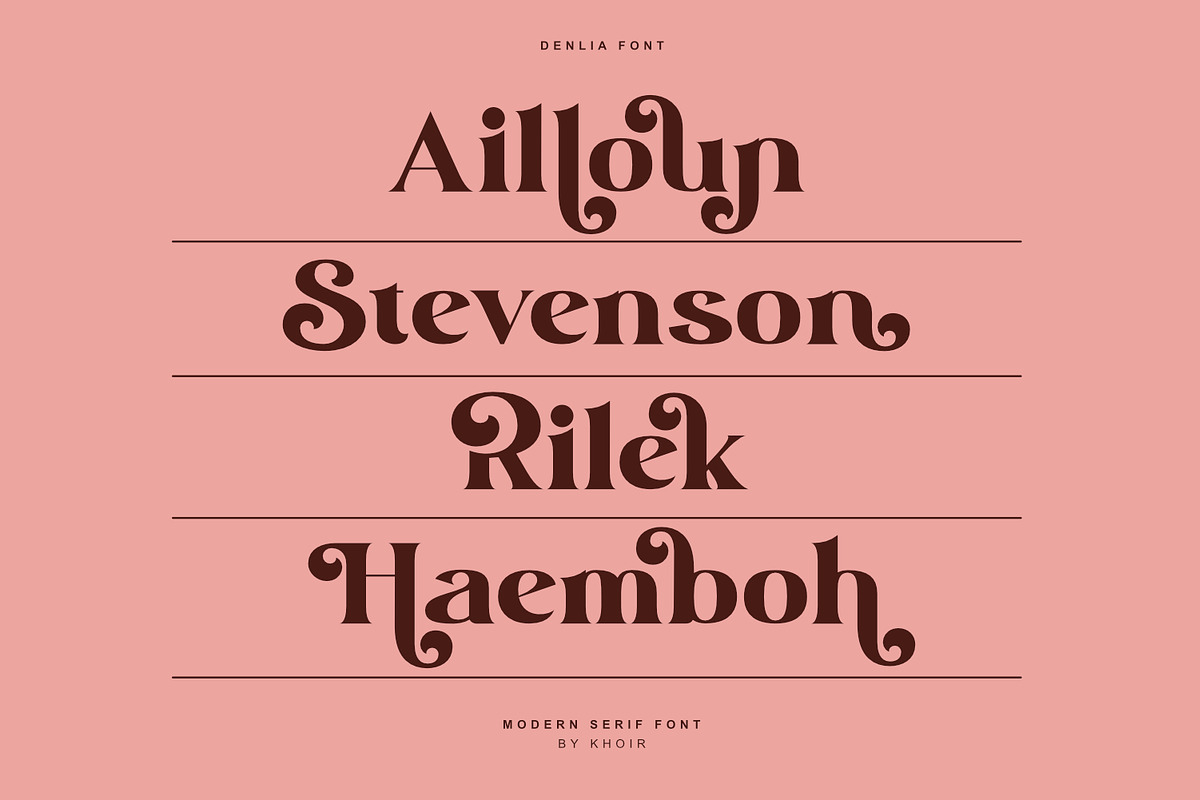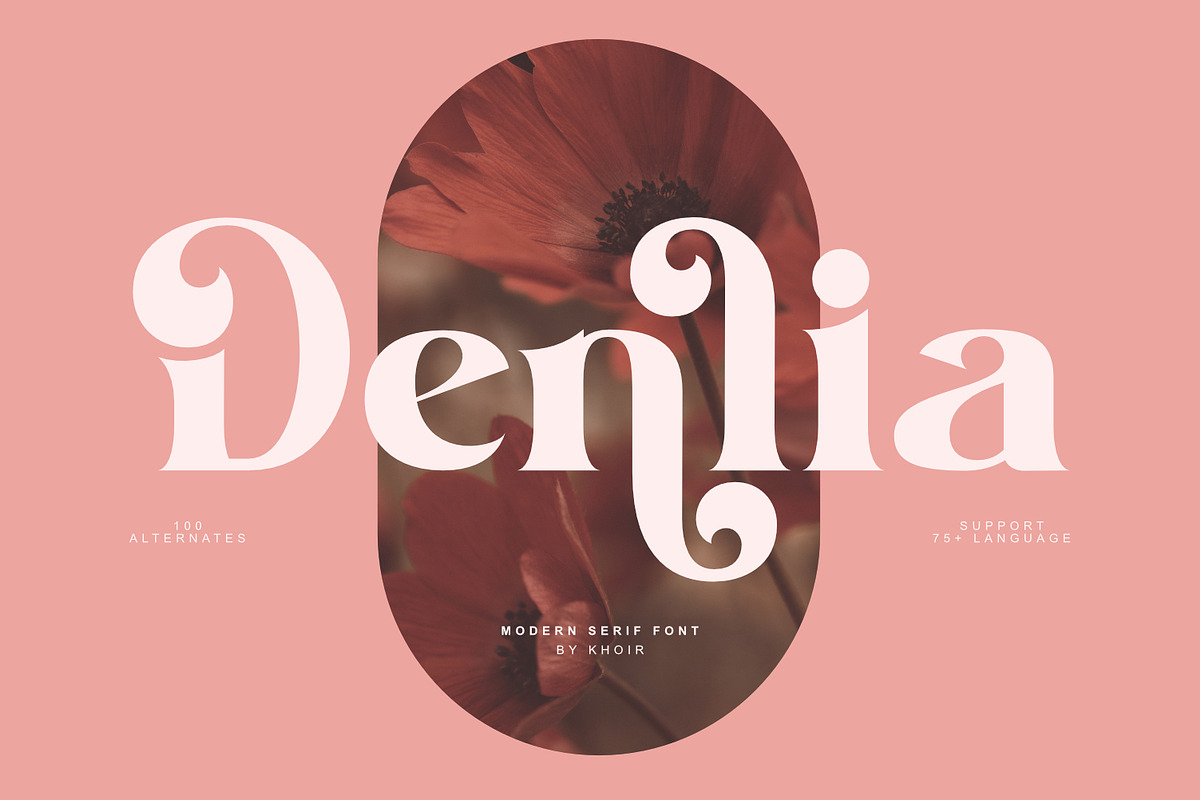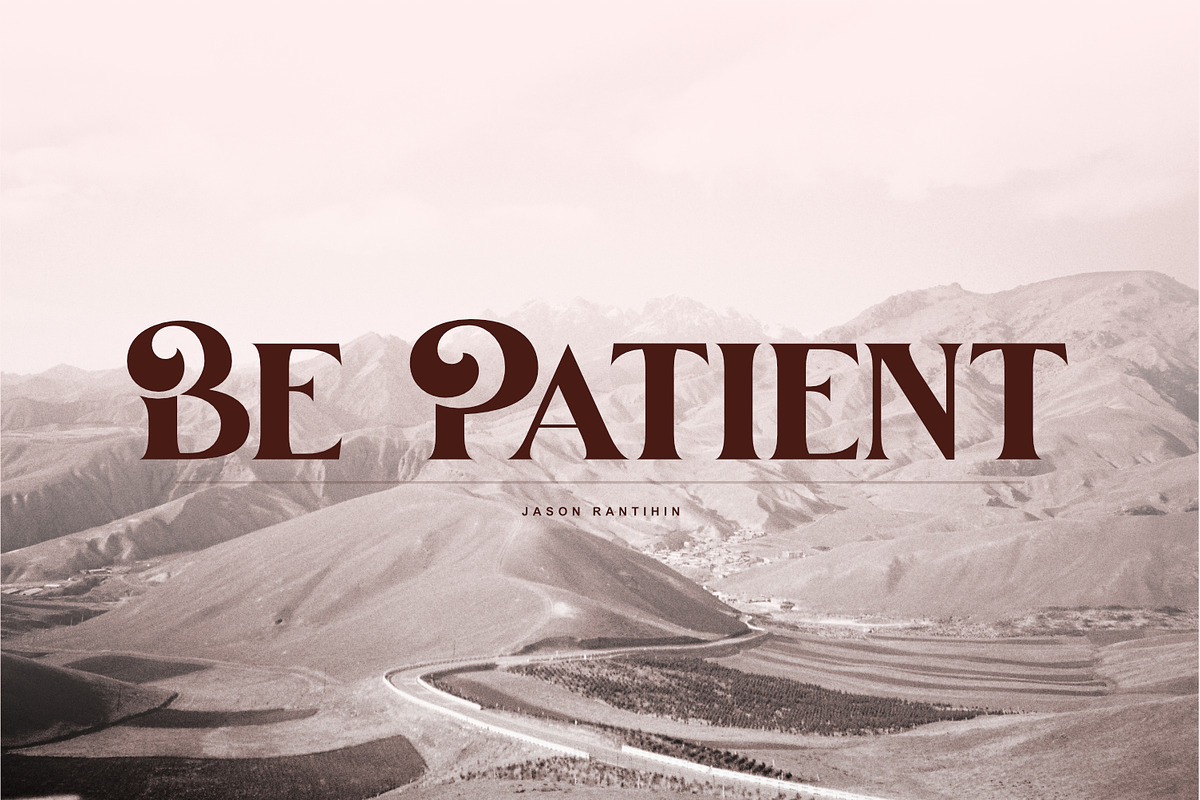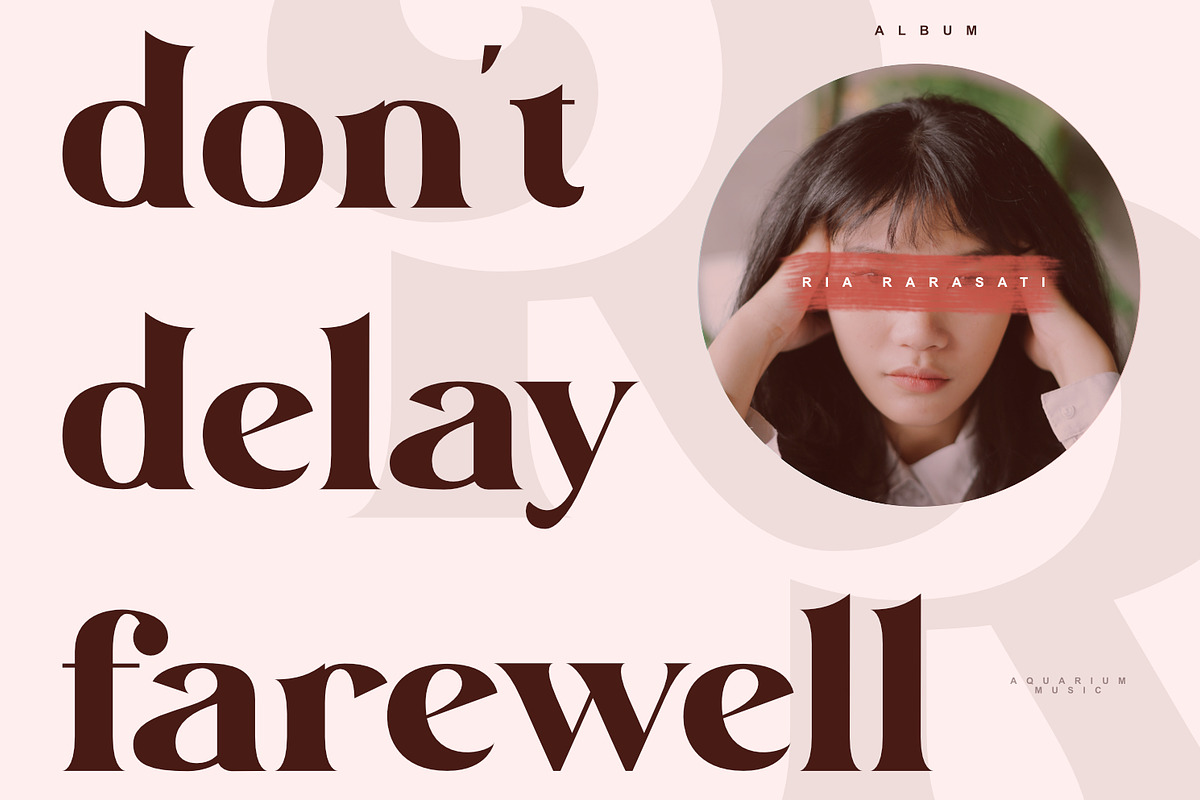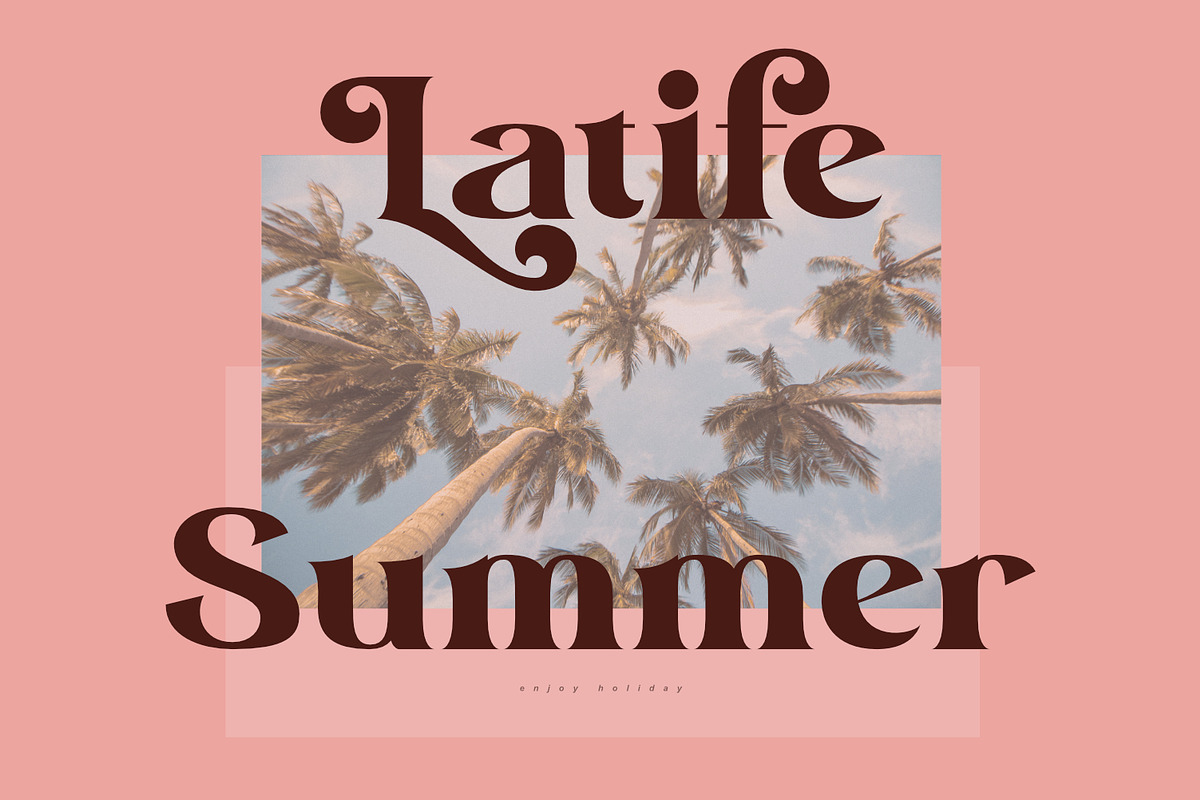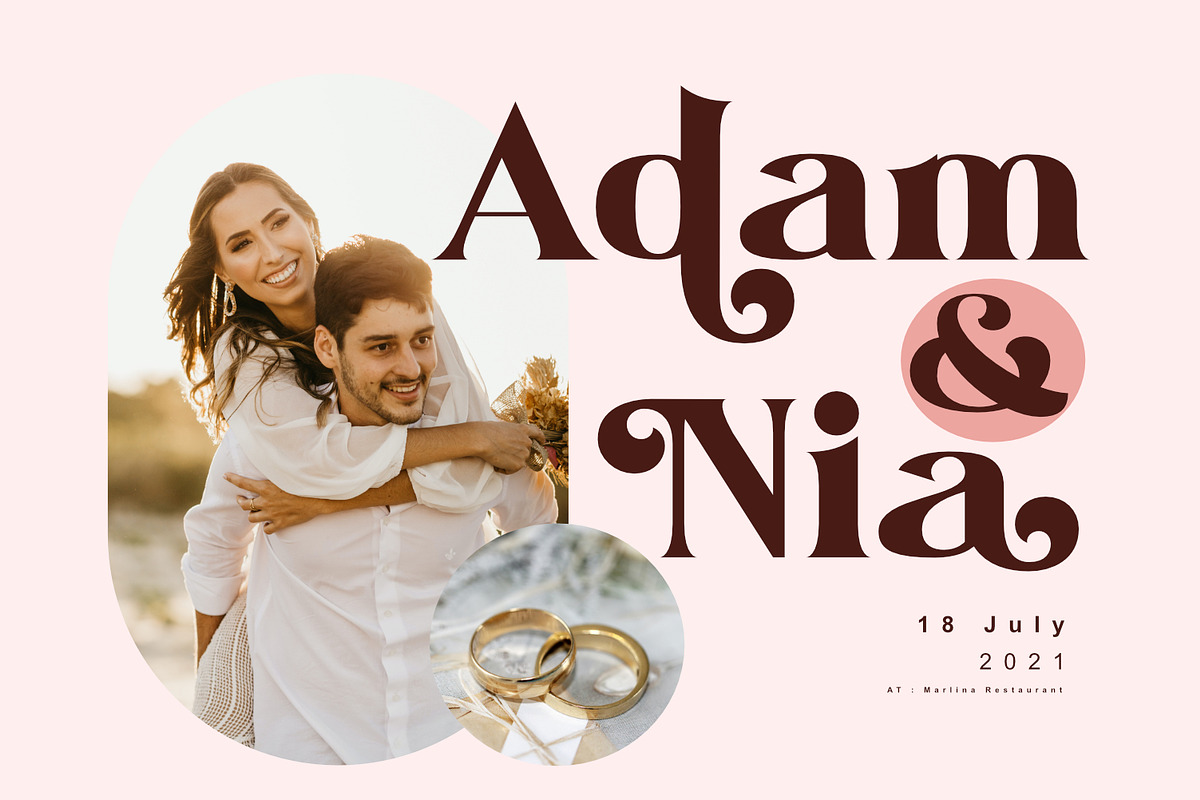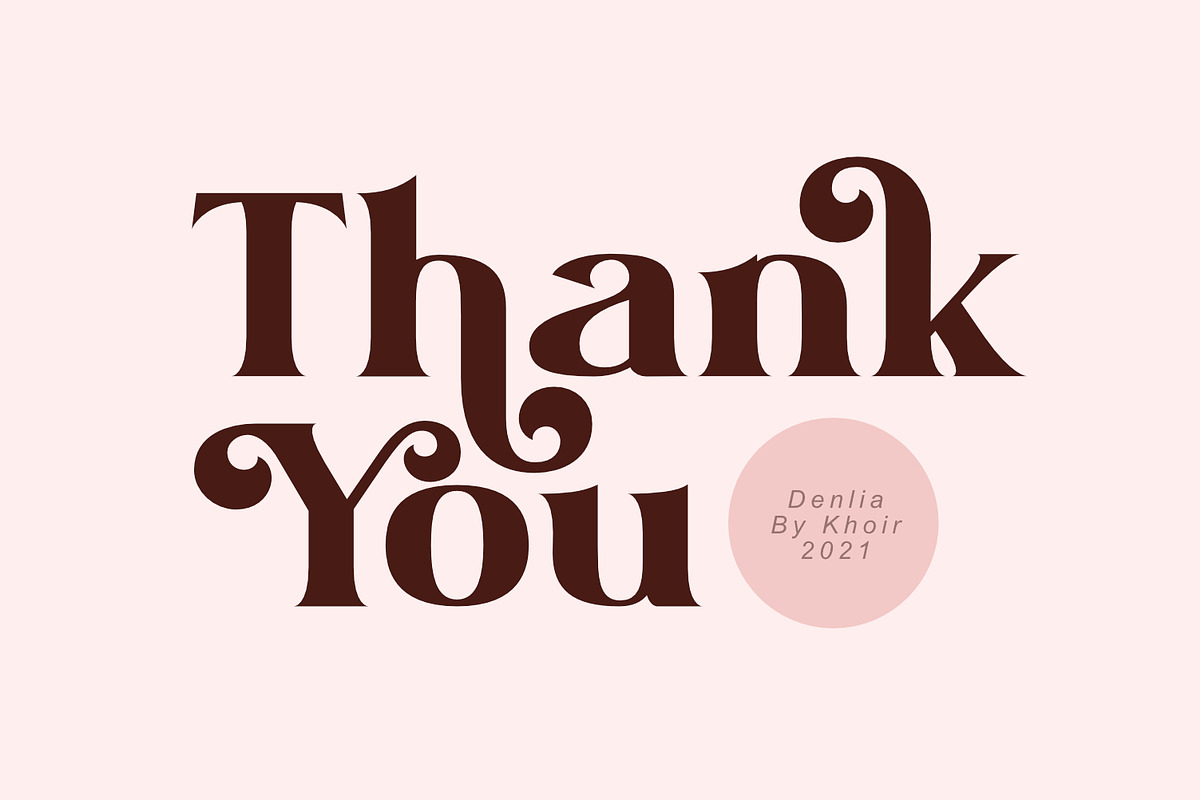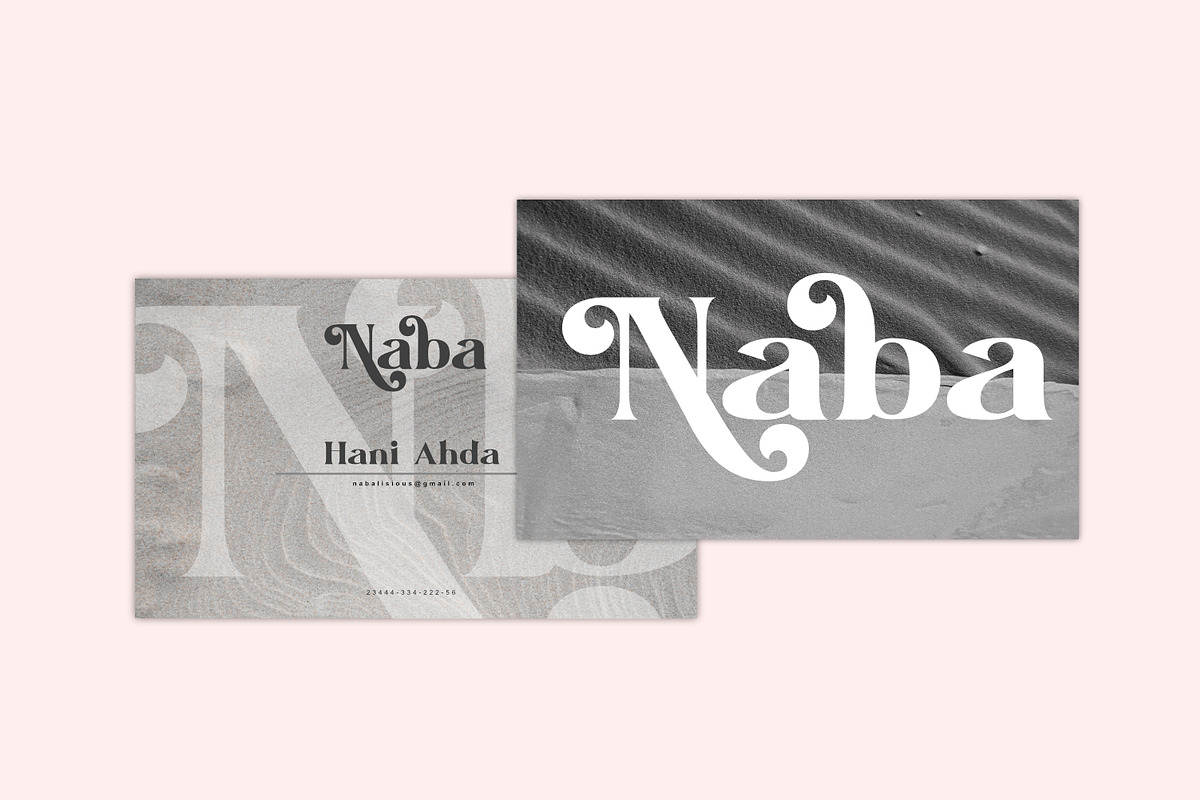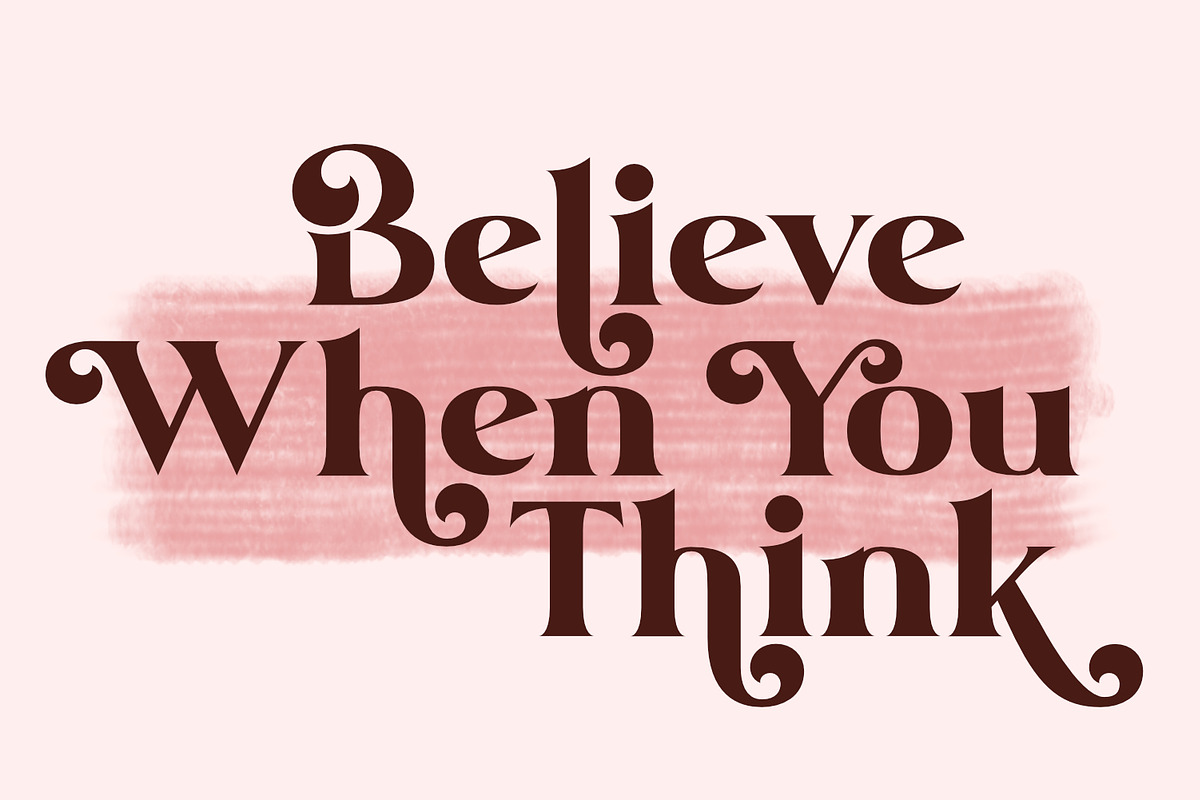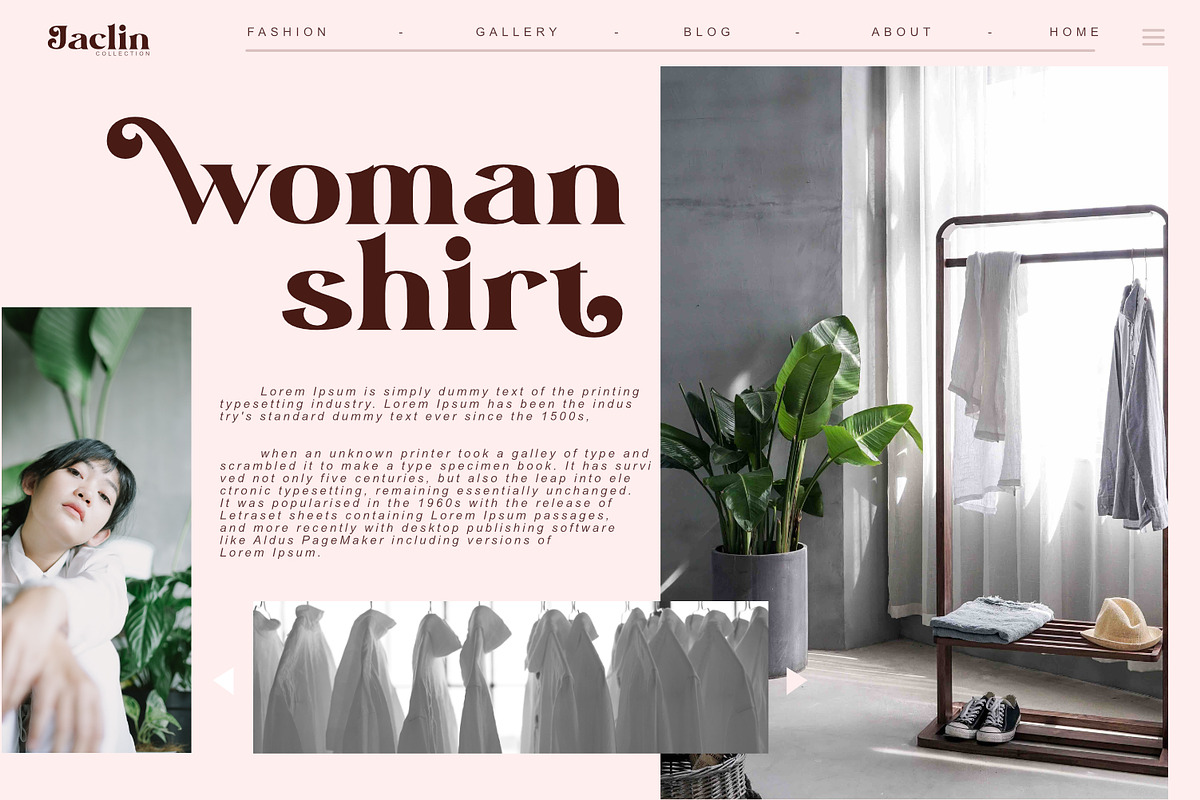
Denlia - Modern Serif
Introducing, Denlia - Modern Serif which is unique in every letter and pays attention to good readability. This font is supported by a fairly complete multilingual, interesting alternative font as many as 100 alternative forms. It's a versatile font and works well in a variety of sizes. This font is perfect for branding, designs, logos, invitations, novels, books, magazines, labels, greeting/wedding cards. So what are you waiting for!
- Uppercase Characters
- Lowercase Characters
- Support 75+ Language
- 100 Alternative